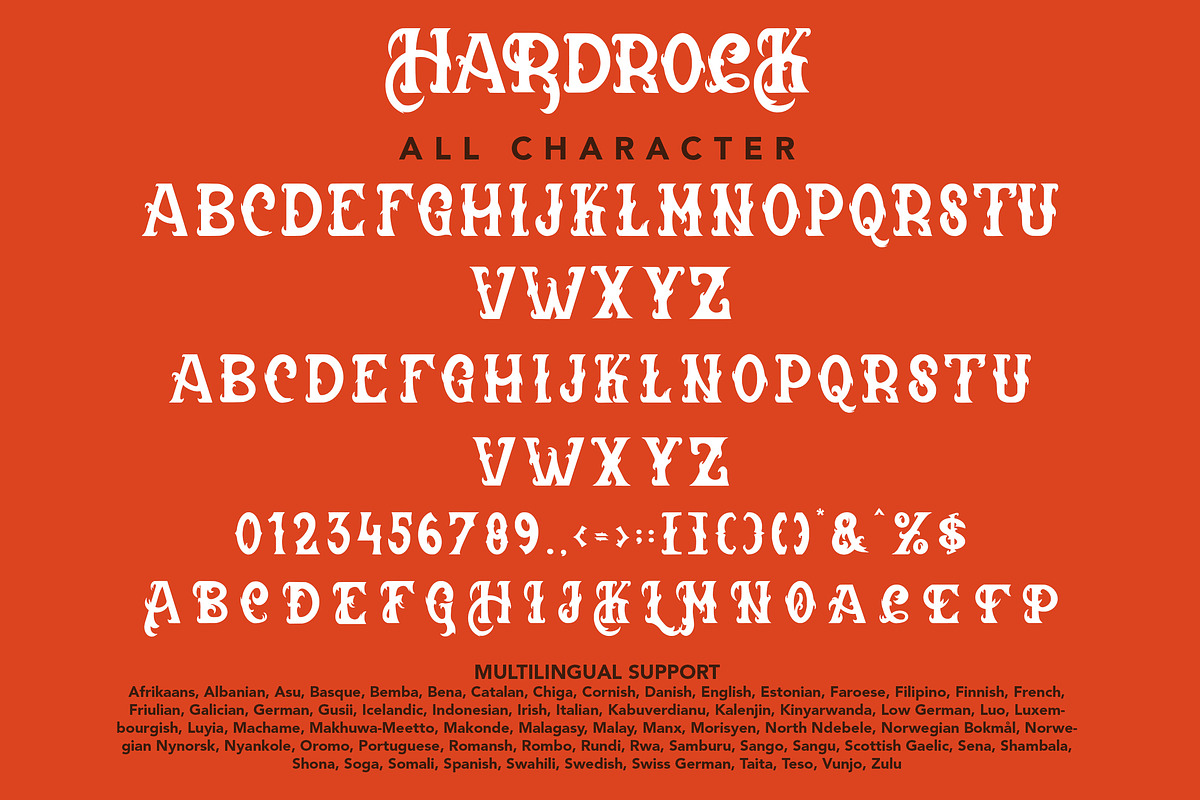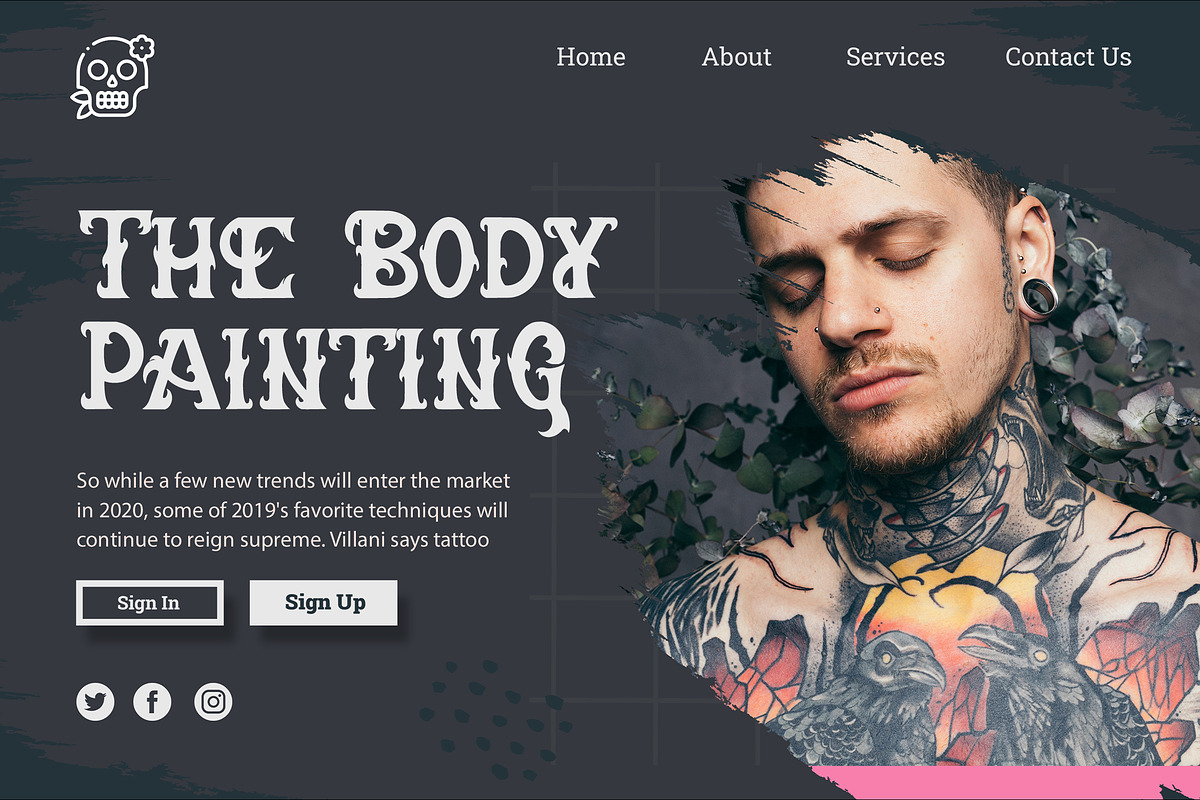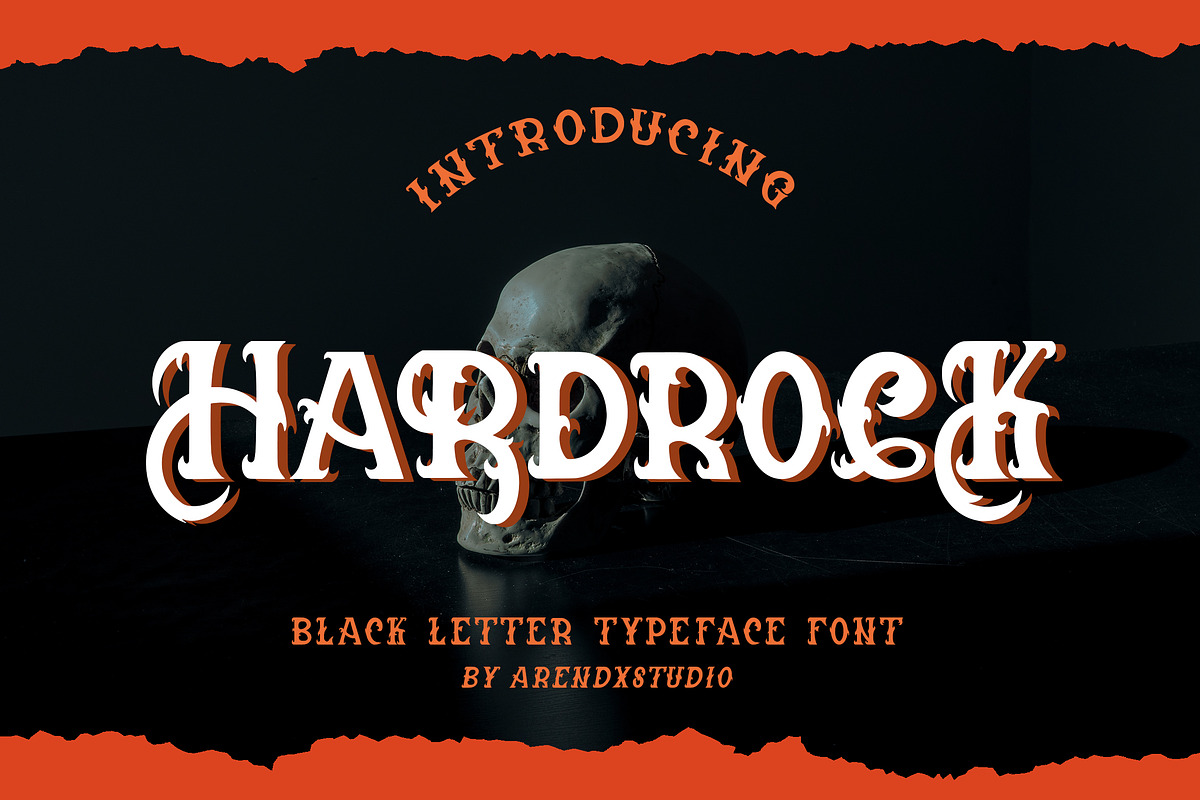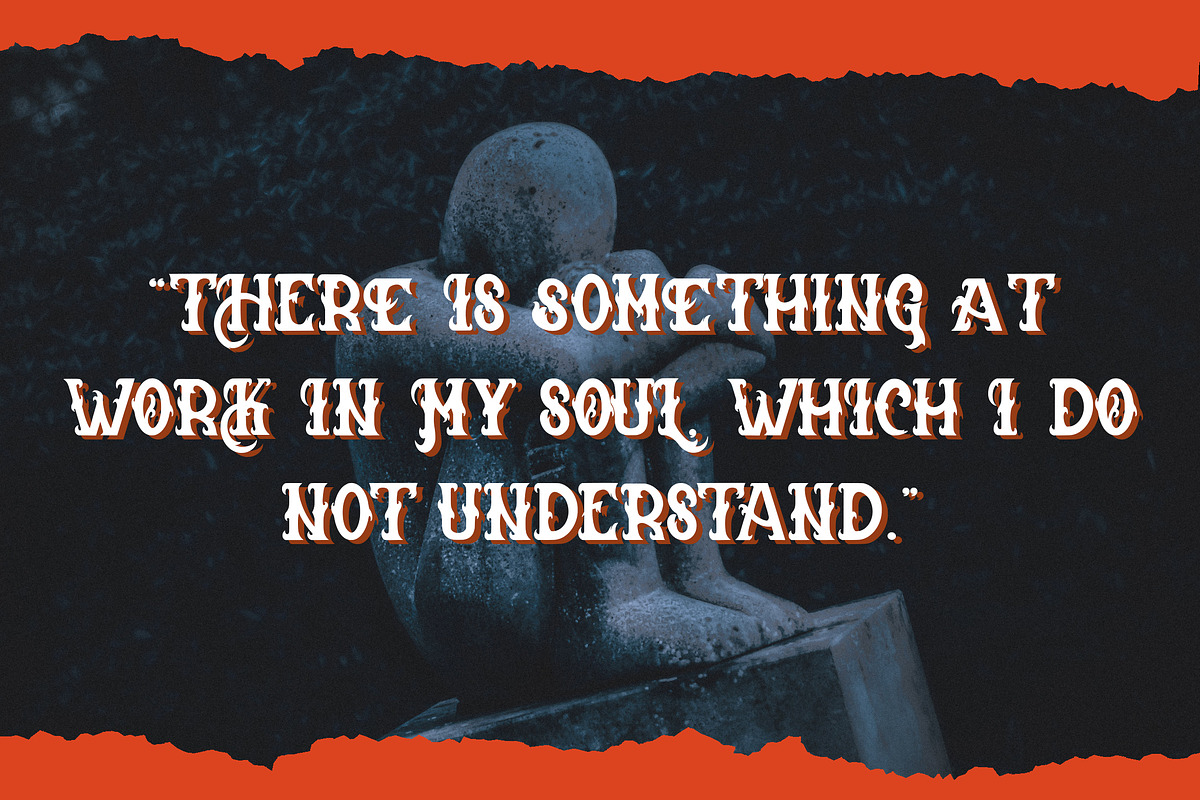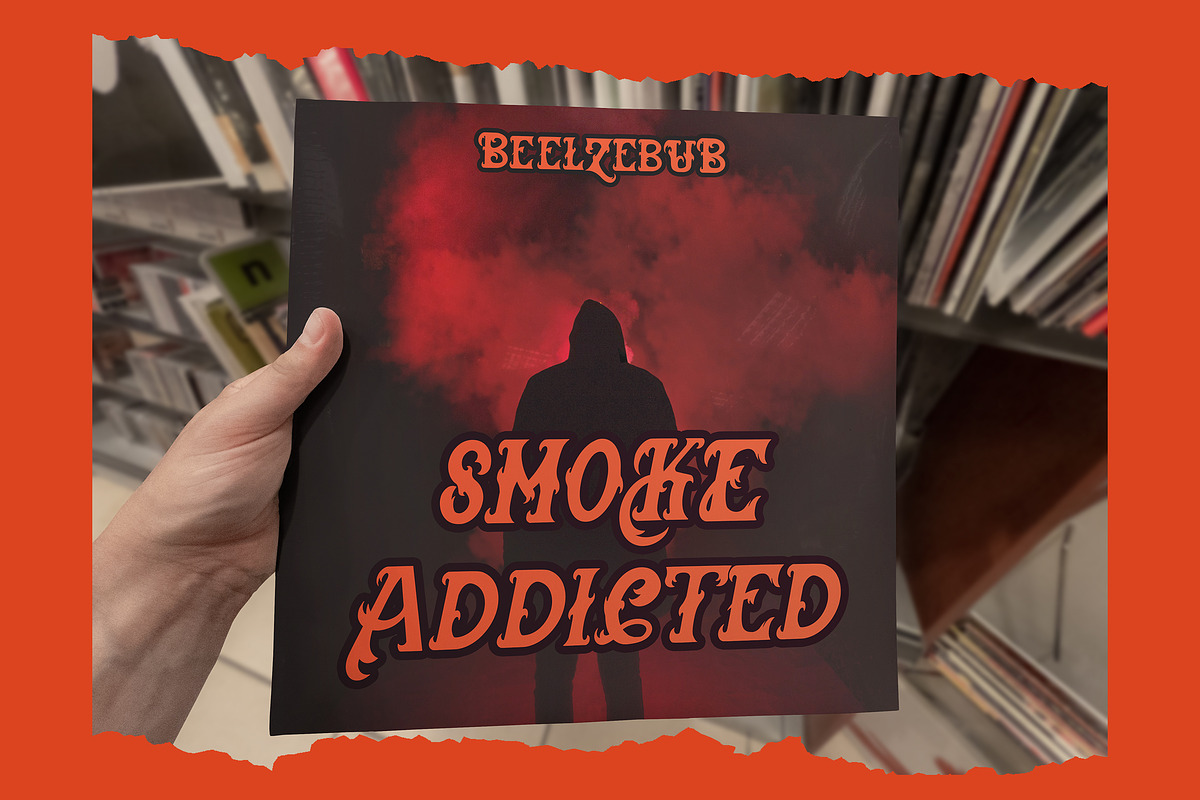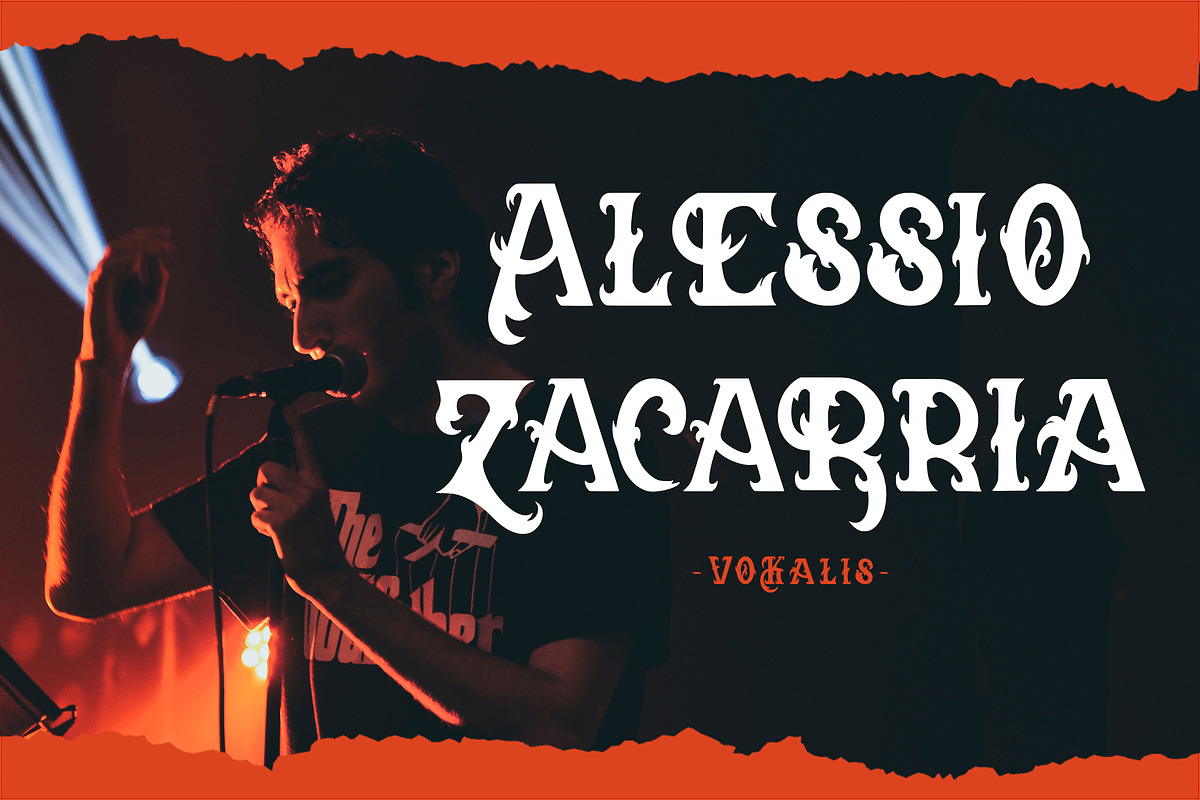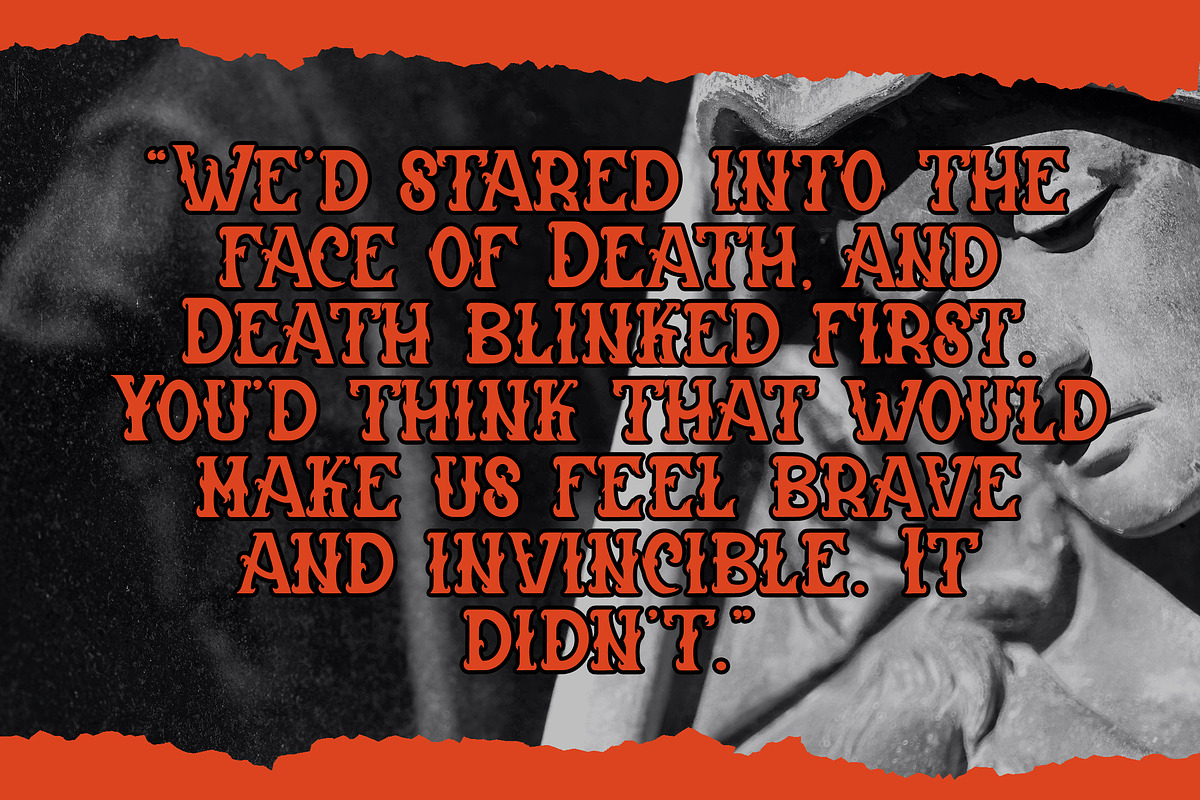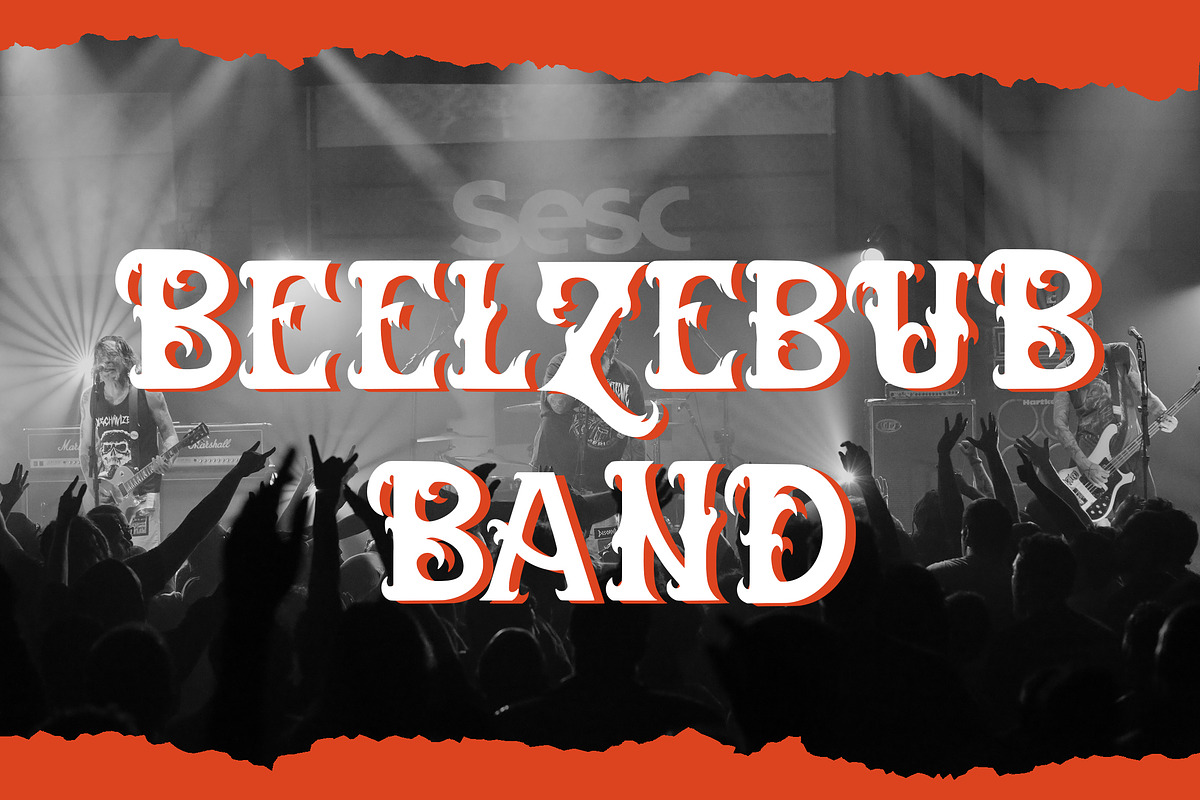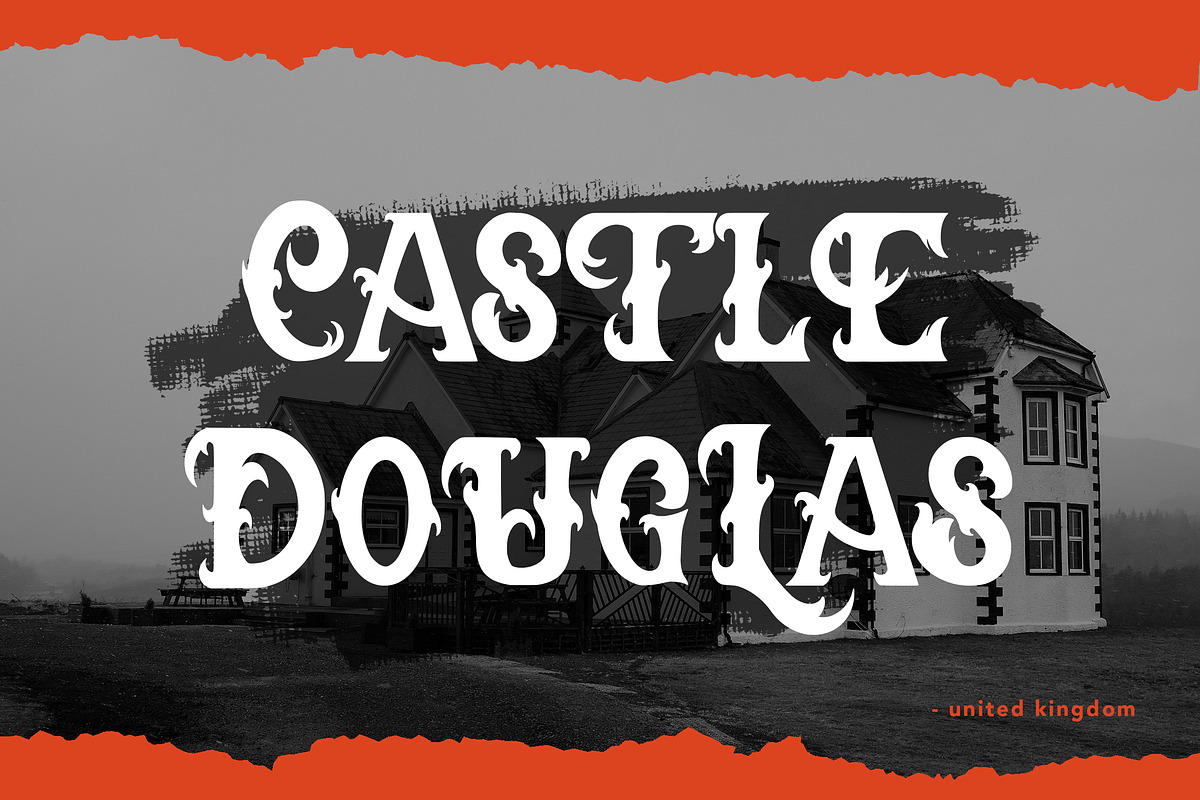
Hardrock - Blackletter Typeface Font
Hardrock - Blackletter Typeface Font is a display font that is inspired by ghotic style because its shape is very unique and is perfect for any project that you will use with this theme.
Hardrock came with opentype features such stylistic alternates, stylistic sets & ligatures good for logotype, poster, badge, book cover, tshirt design, packaging and any more.